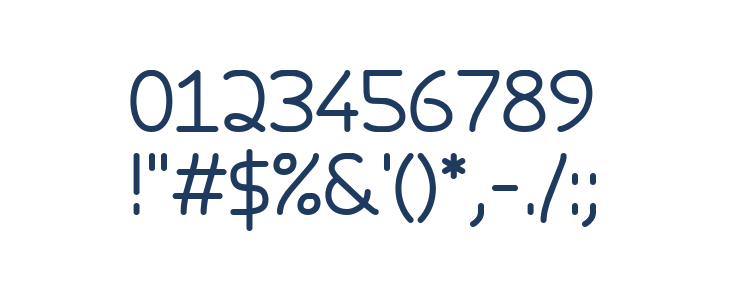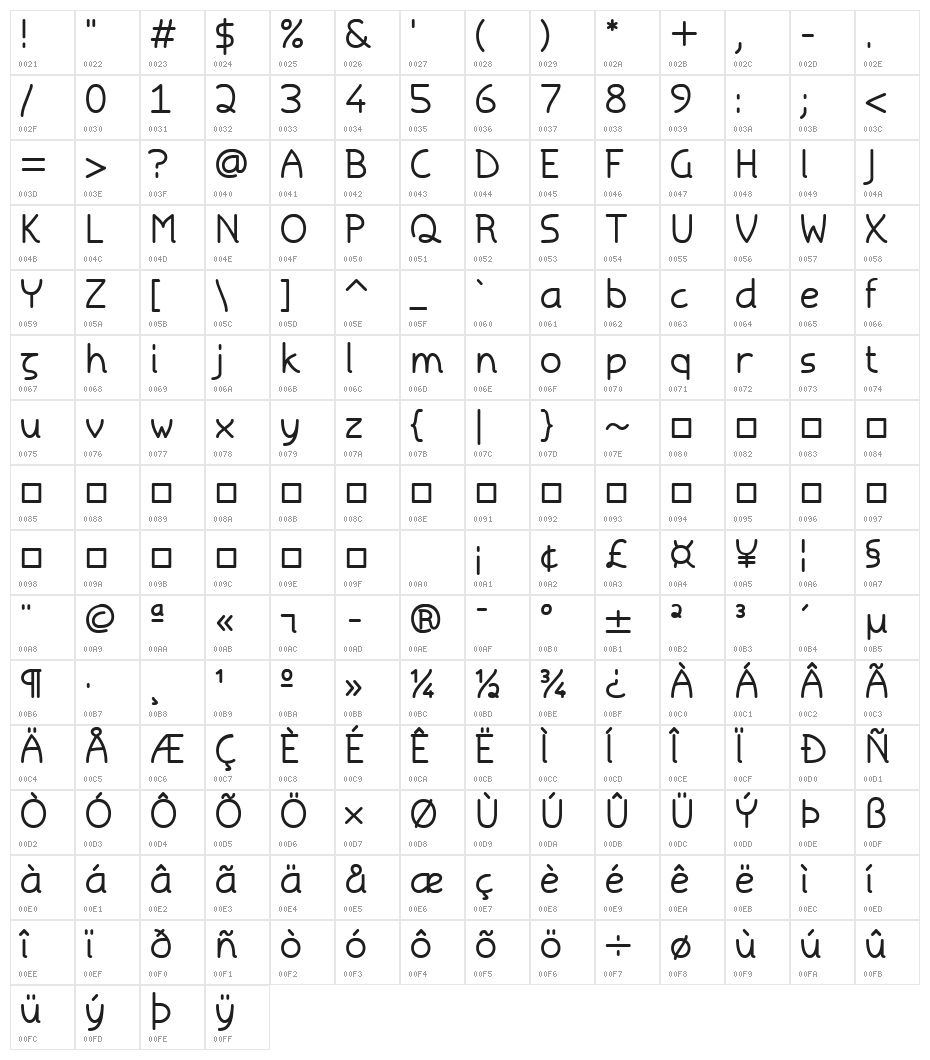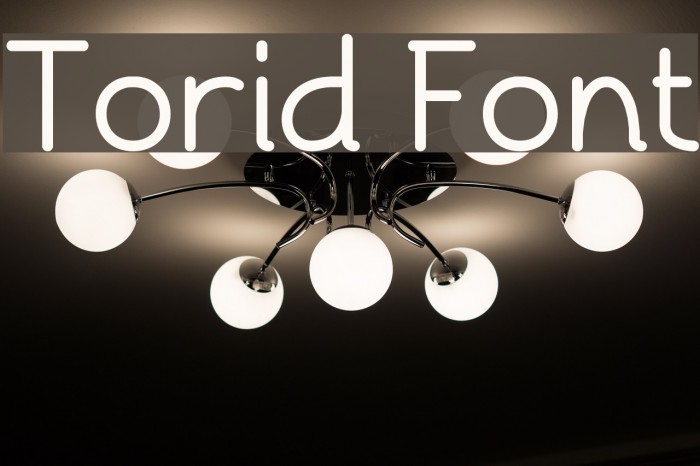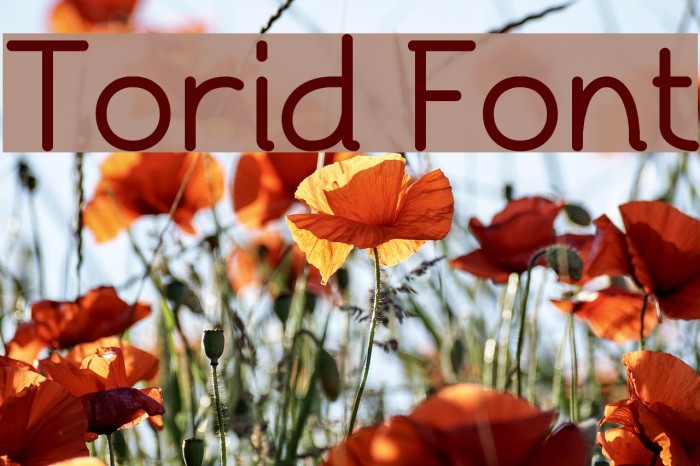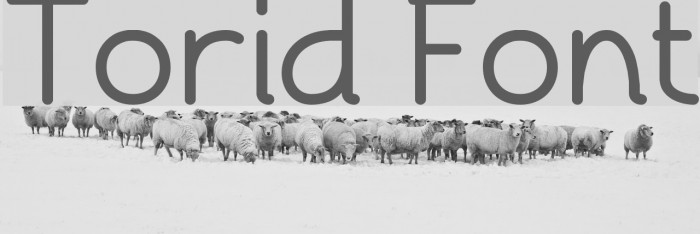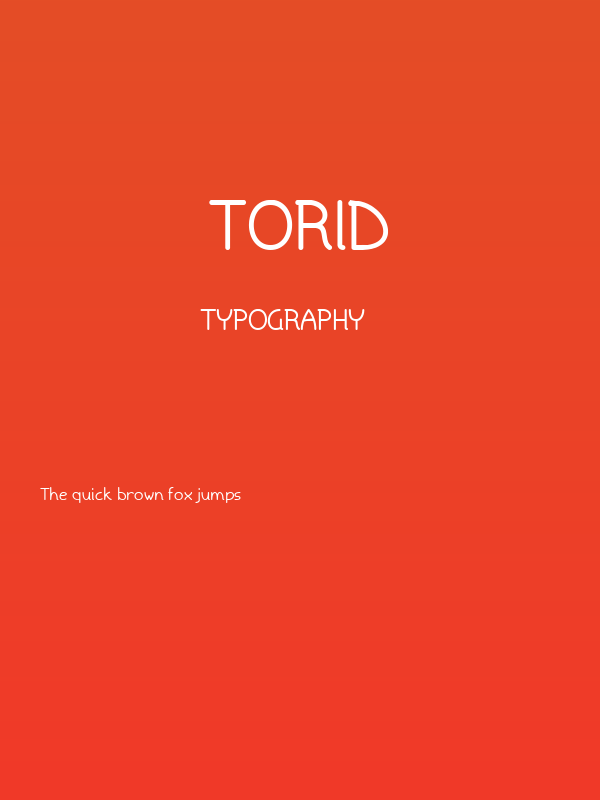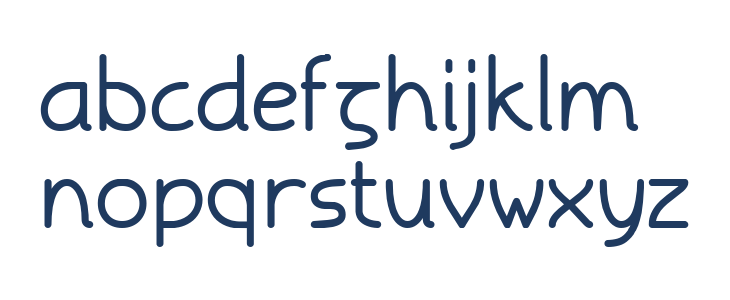
Torid Font
Torid Description
This font features a clean, rounded design with a modern and approachable aesthetic. The characters are evenly spaced, contributing to a balanced and harmonious appearance. The uppercase letters maintain a consistent height, while the lowercase letters have a slightly playful curve, adding a touch of friendliness. The numerals are clear and legible, making them suitable for various applications. Special characters are well-integrated, maintaining the overall style. The font's simplicity and clarity make it versatile for both digital and print media.
Overall StyleModern
Use CaseHeadlines, Body text, Logos
Proposed ProjectsIdeal for branding, web design, children's books, and educational materials.